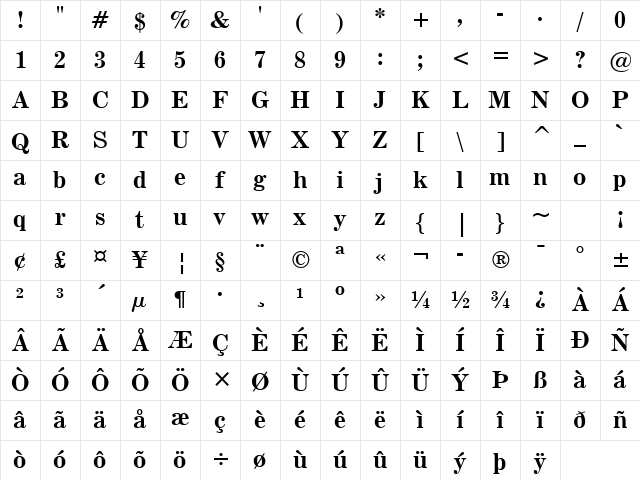
CenturyExpd BT Bold
CenturyExpd BT Family
Design Context for CenturyExpd BT
CenturyExpd BT is a composed and adaptable typeface that performs quietly and consistently across a wide range of design contexts. Its bold stroke weight gives it real presence on the page.